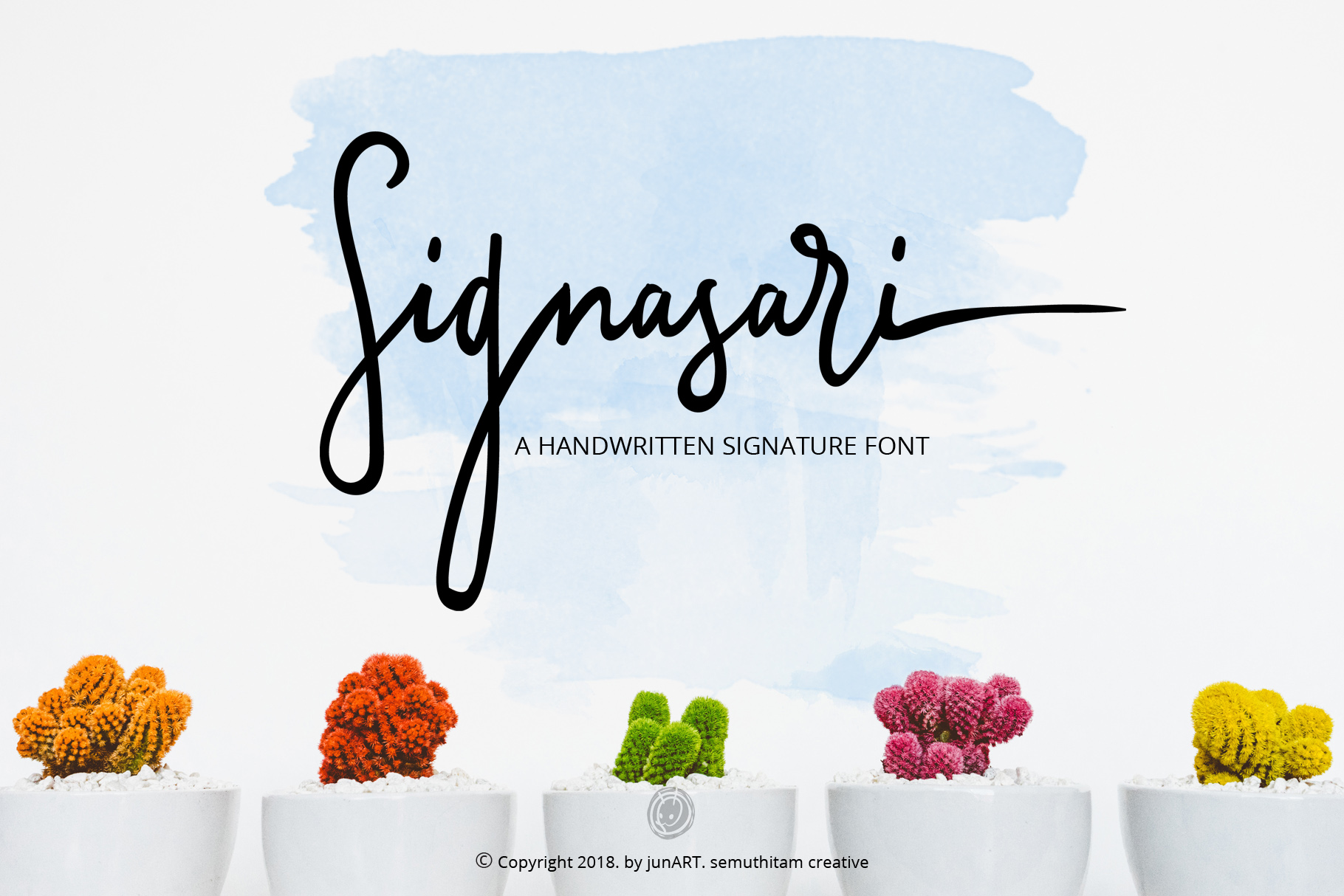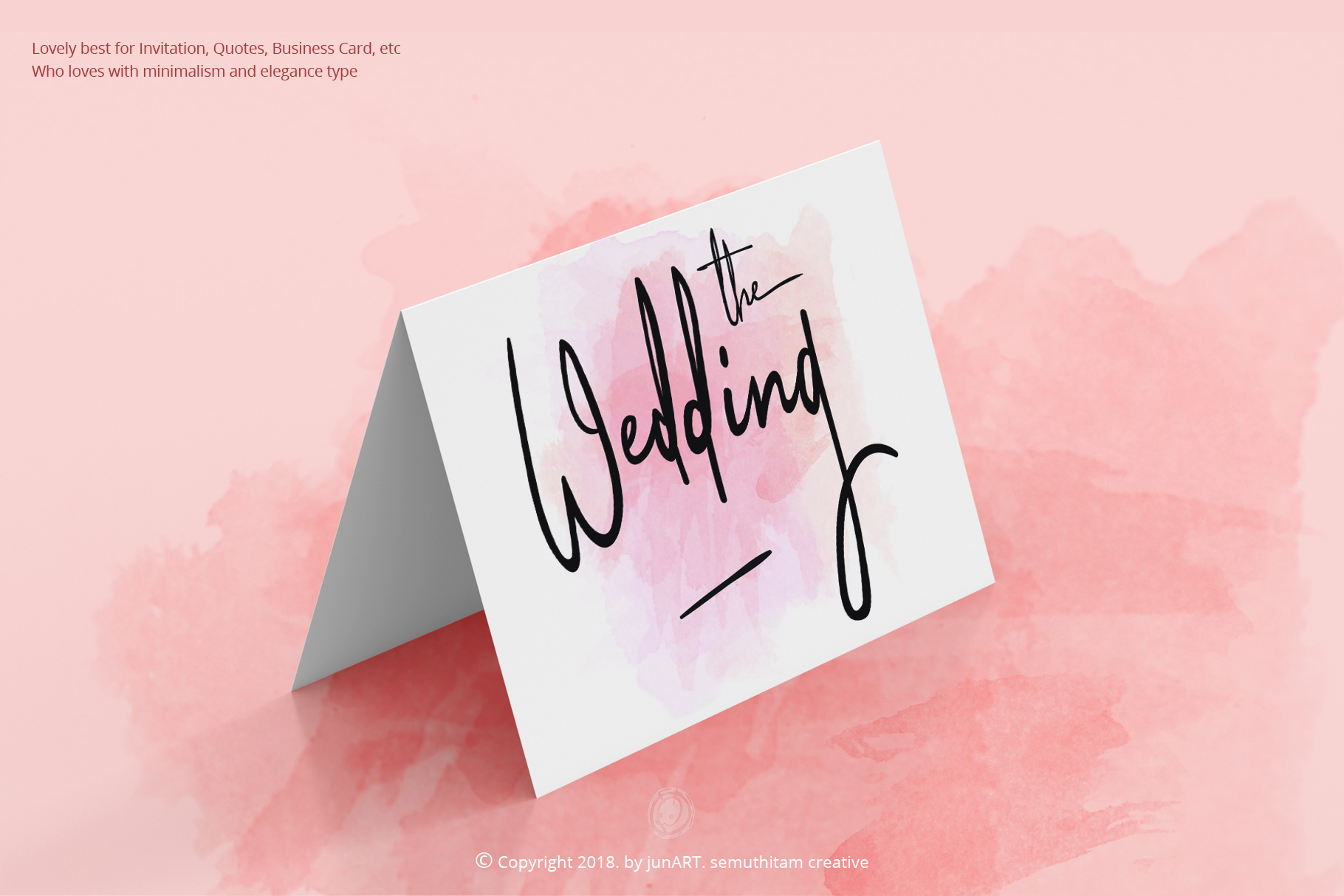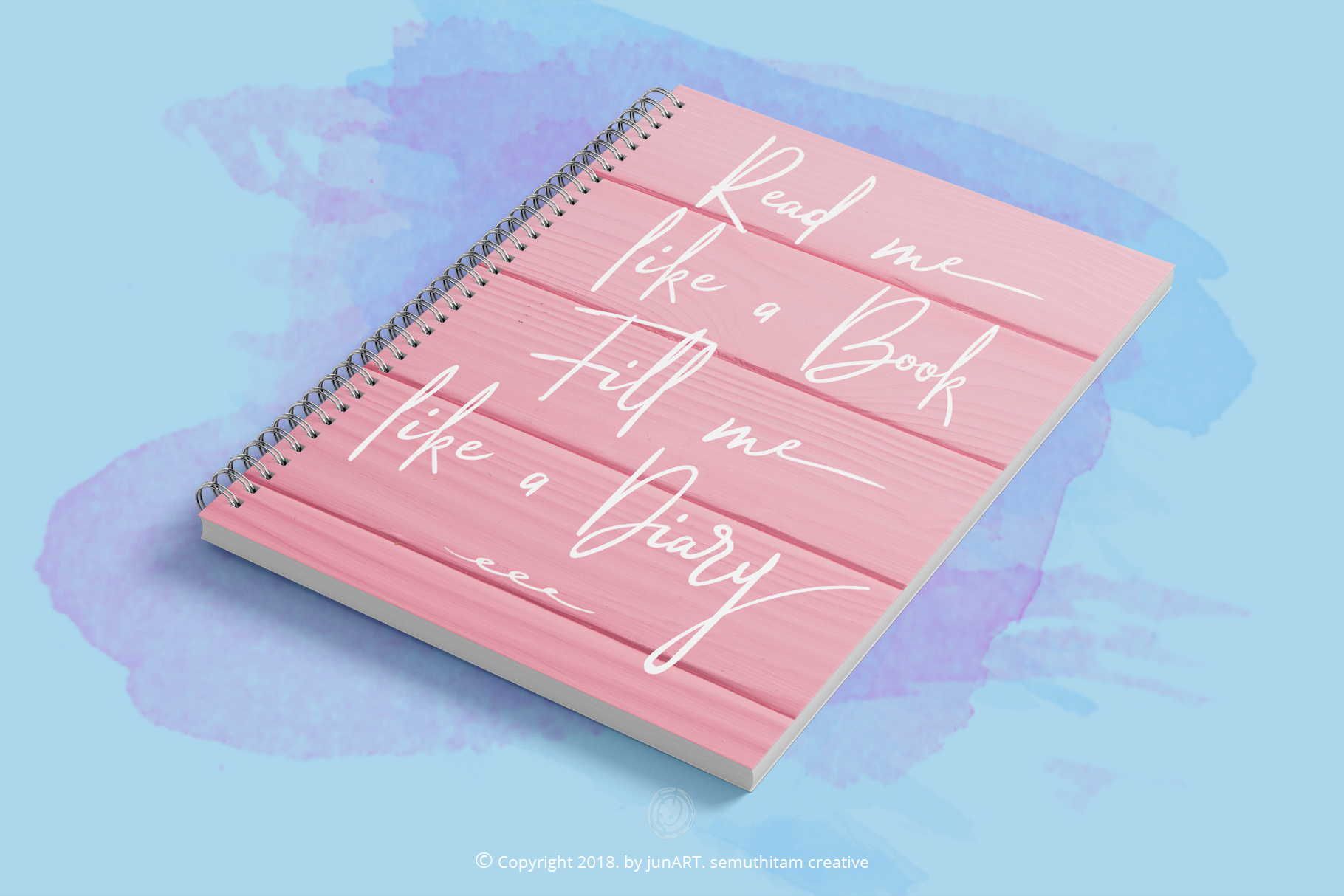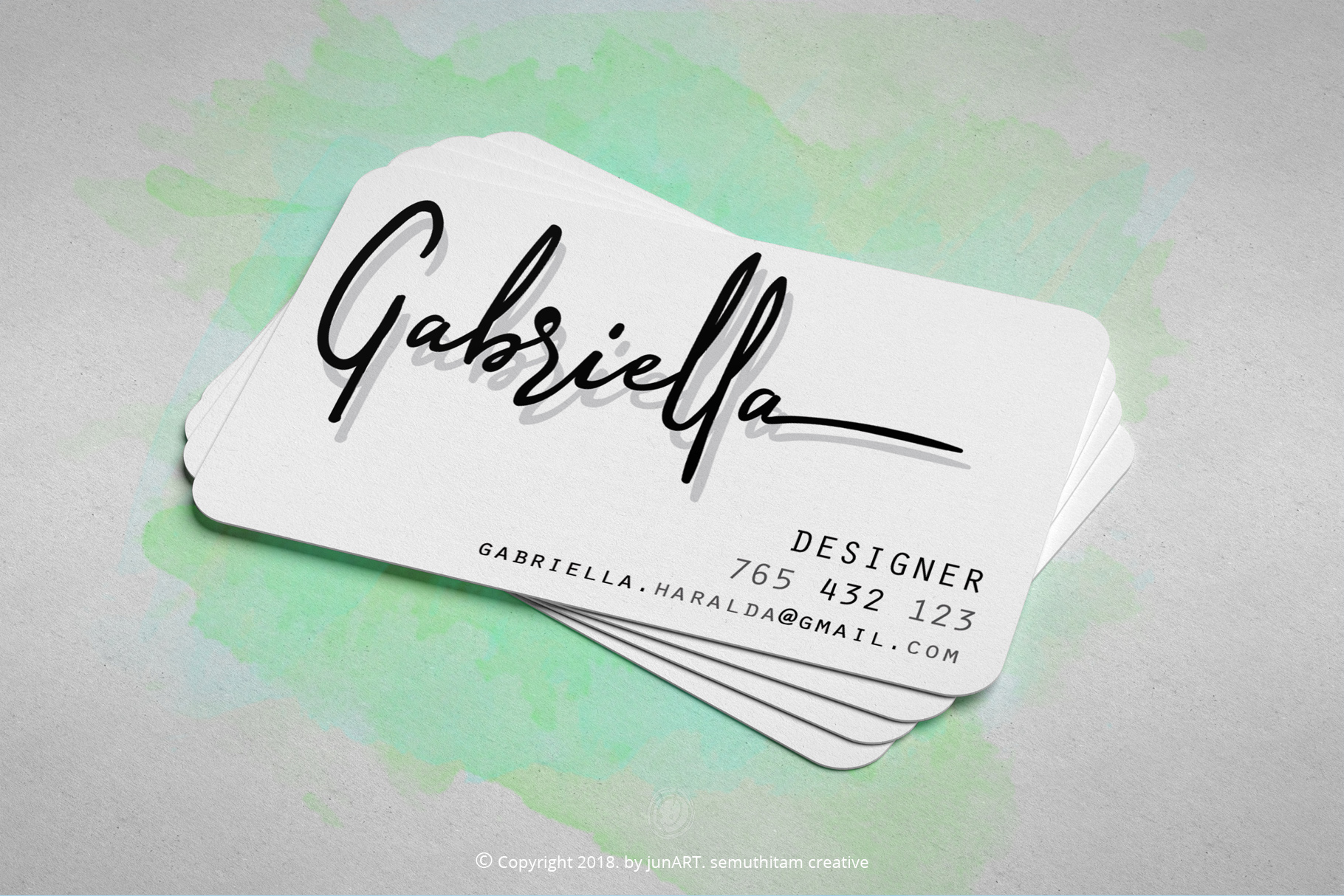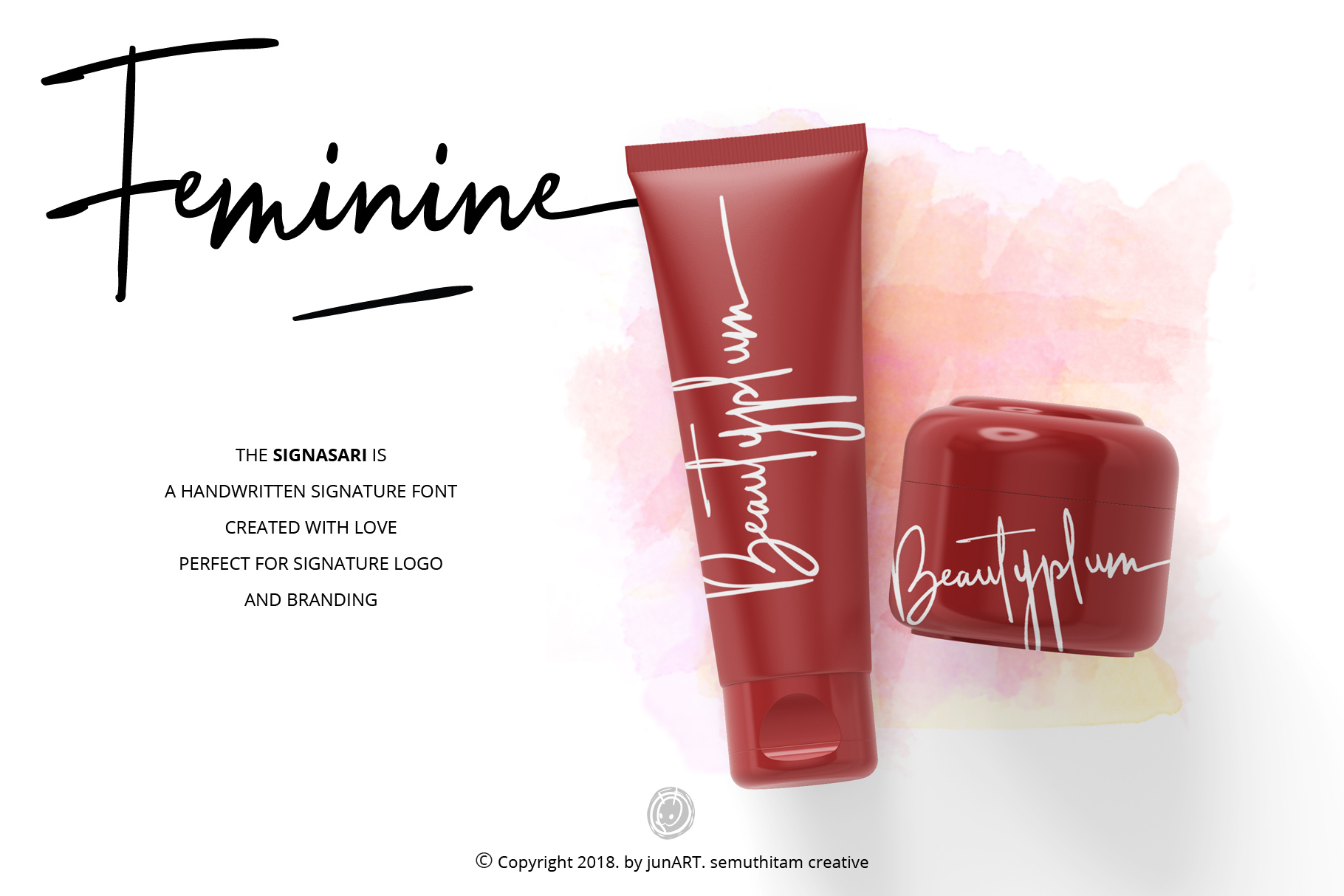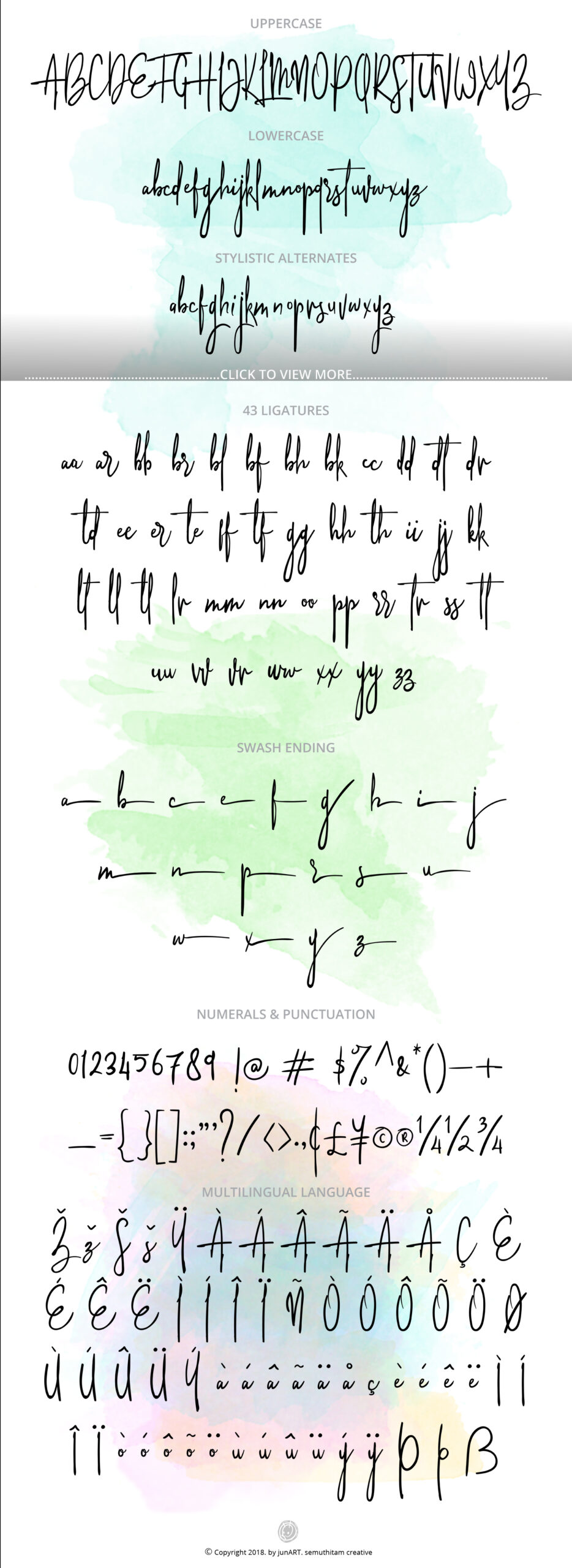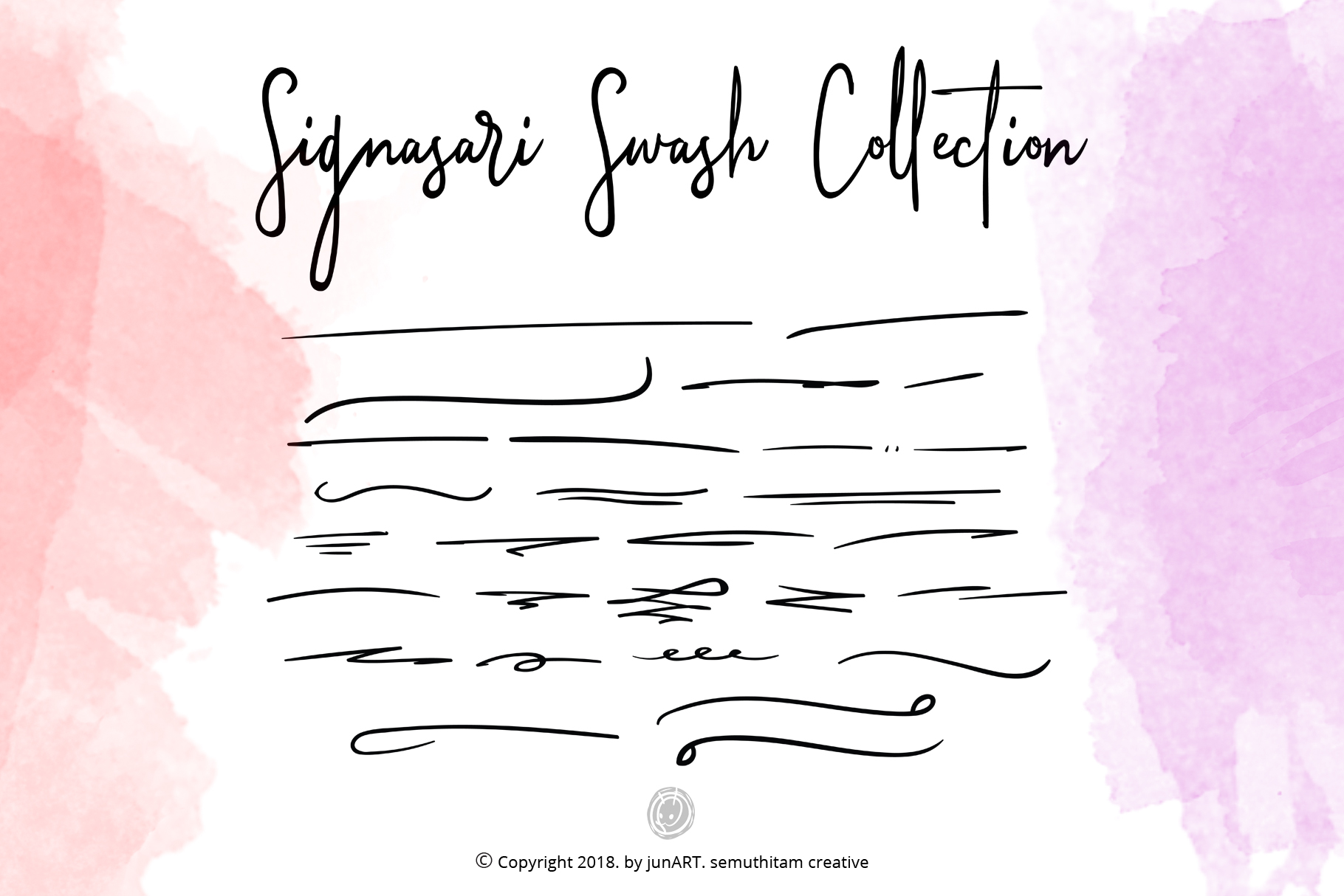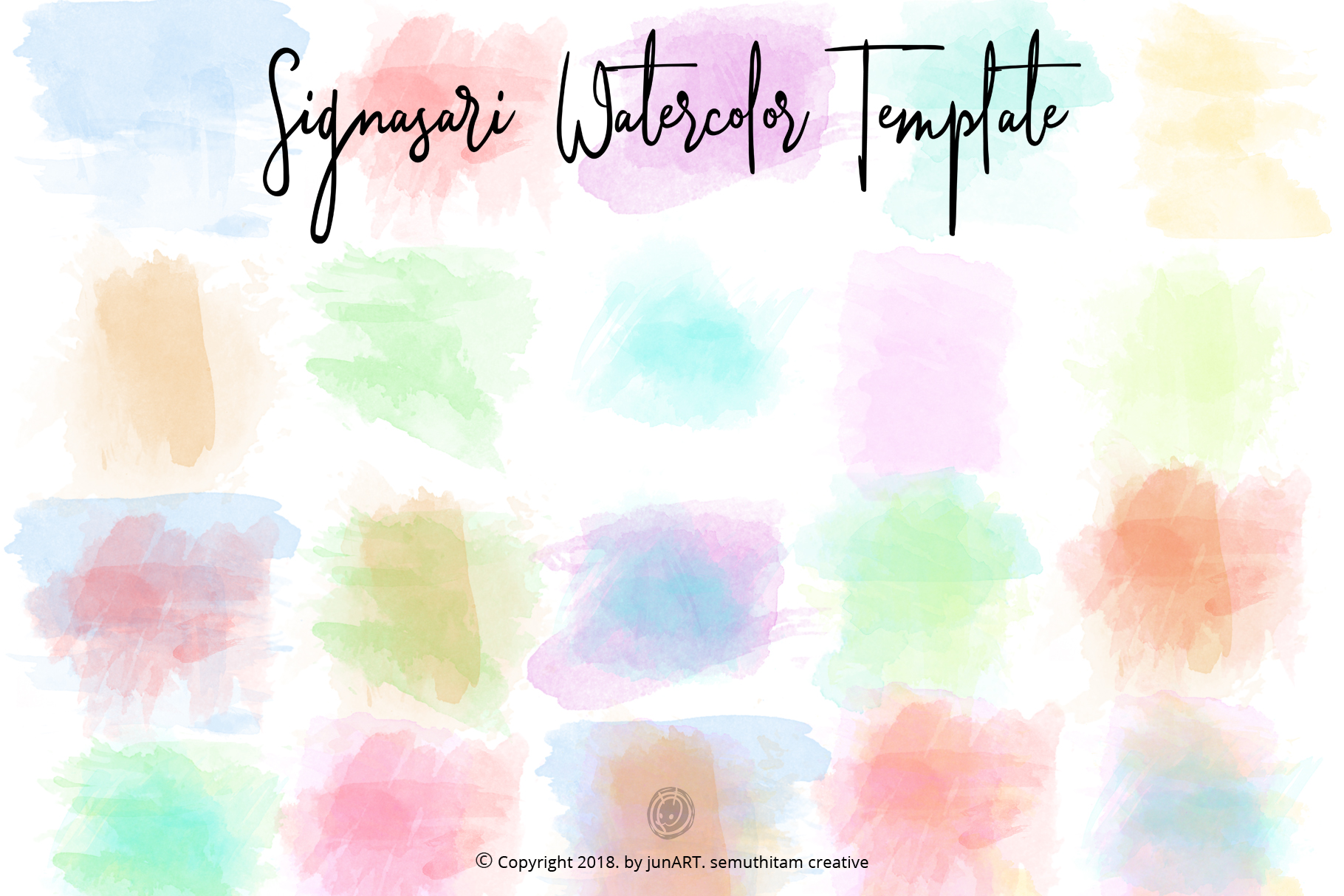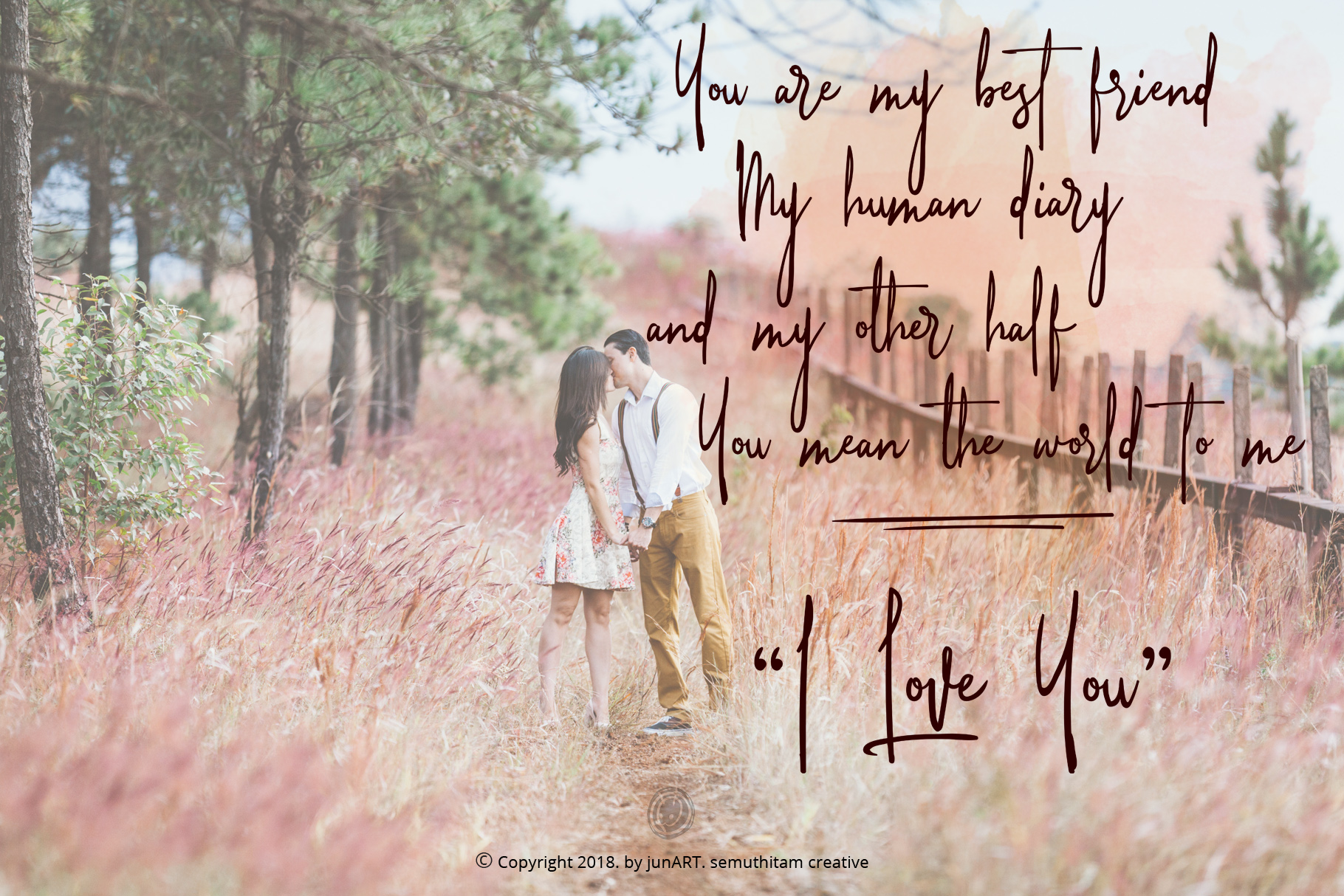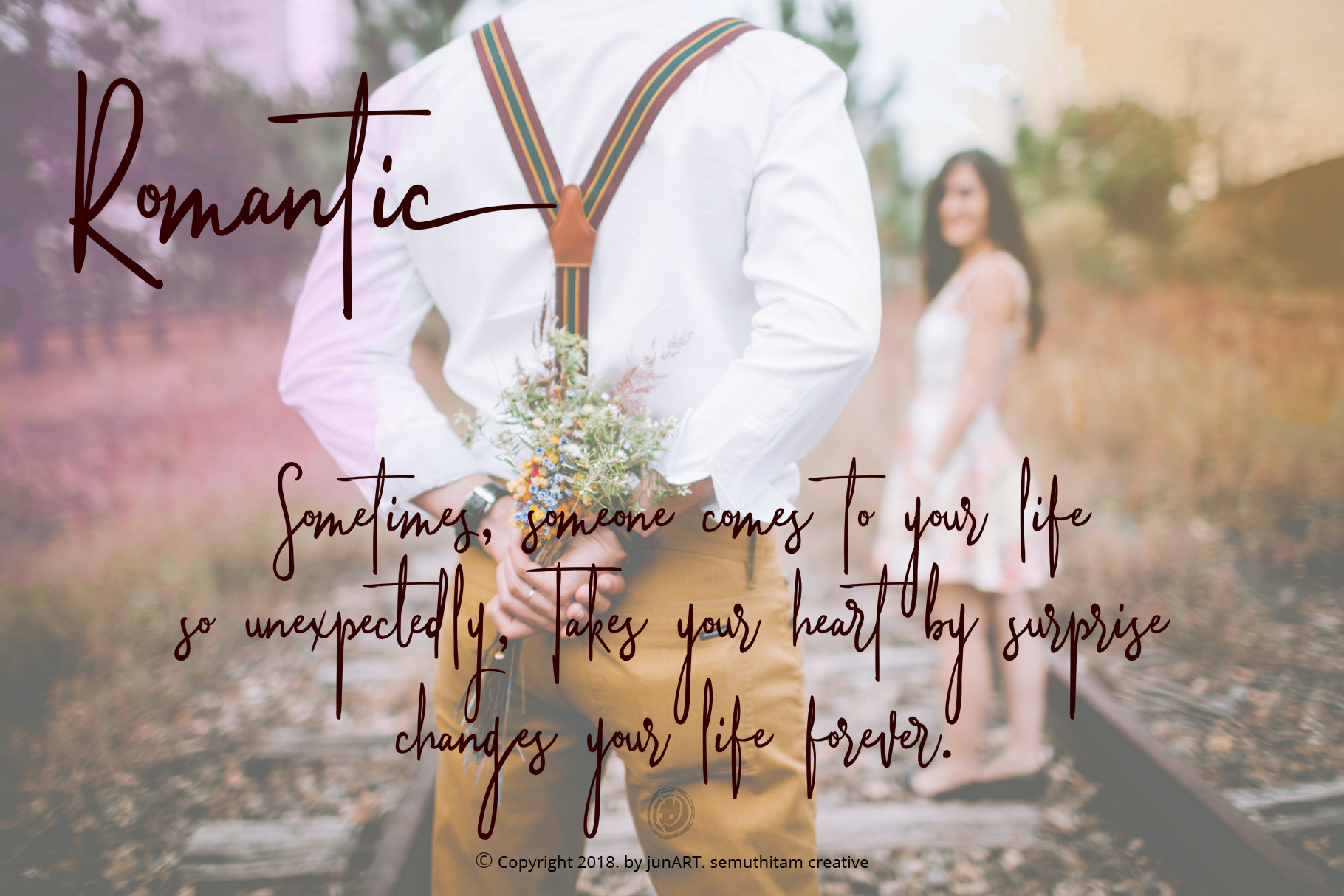
Signasari + Extras Font
About Signasari + Extras Font
Harmonious and beautiful, Signasari is a font that is made for all those who want a touch of femininity and grace in their designs. A very natural font with many variations, Signasari is sophisticated and perfect for many signature looks.